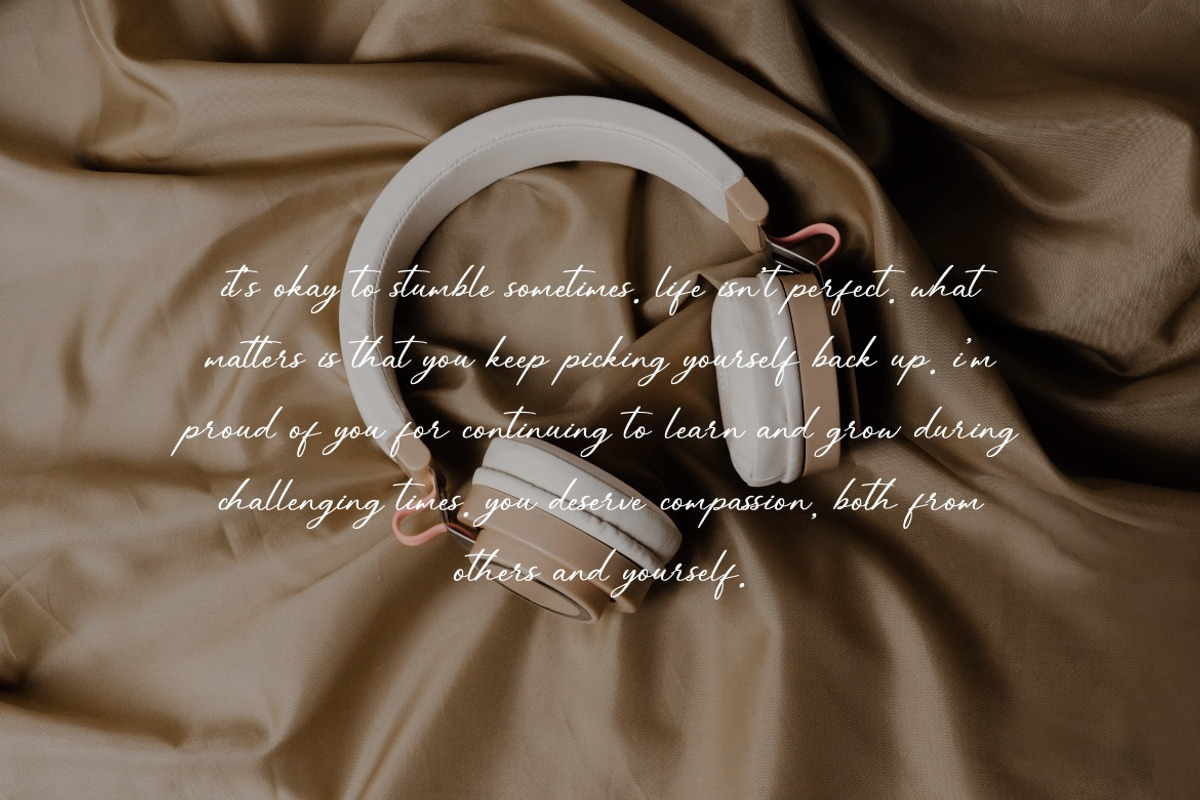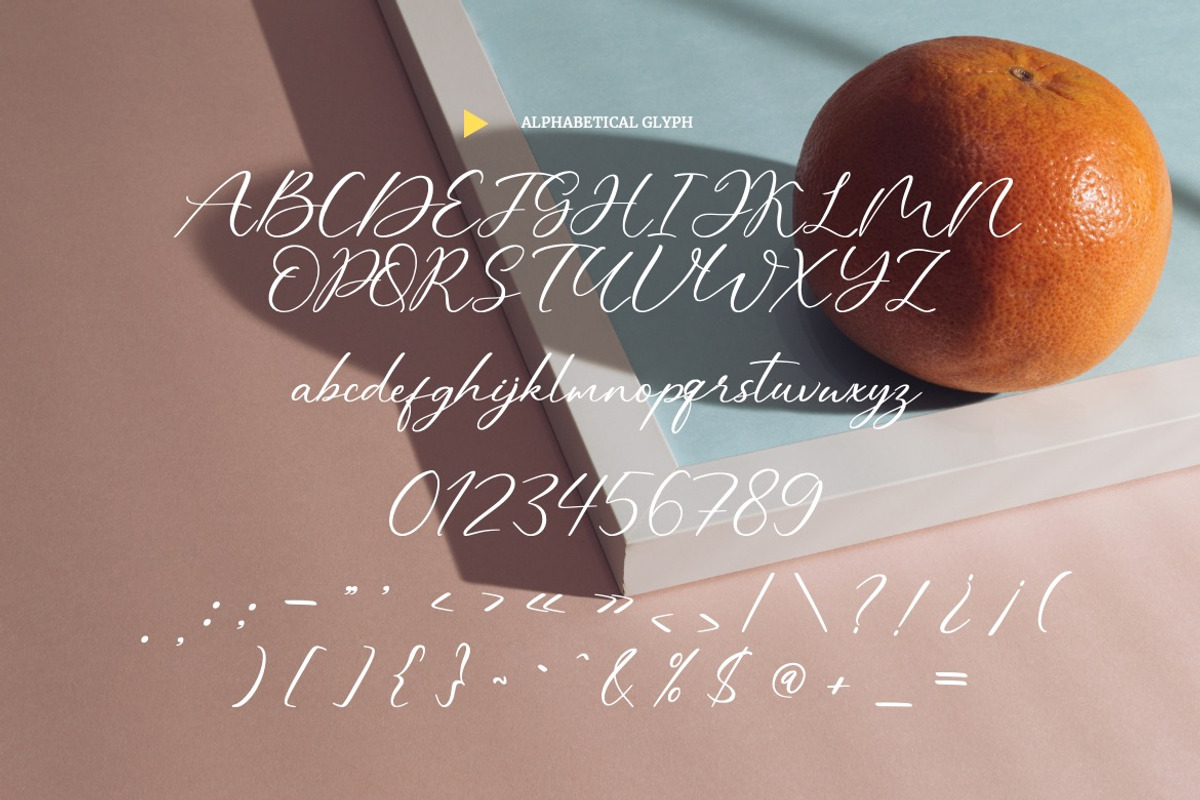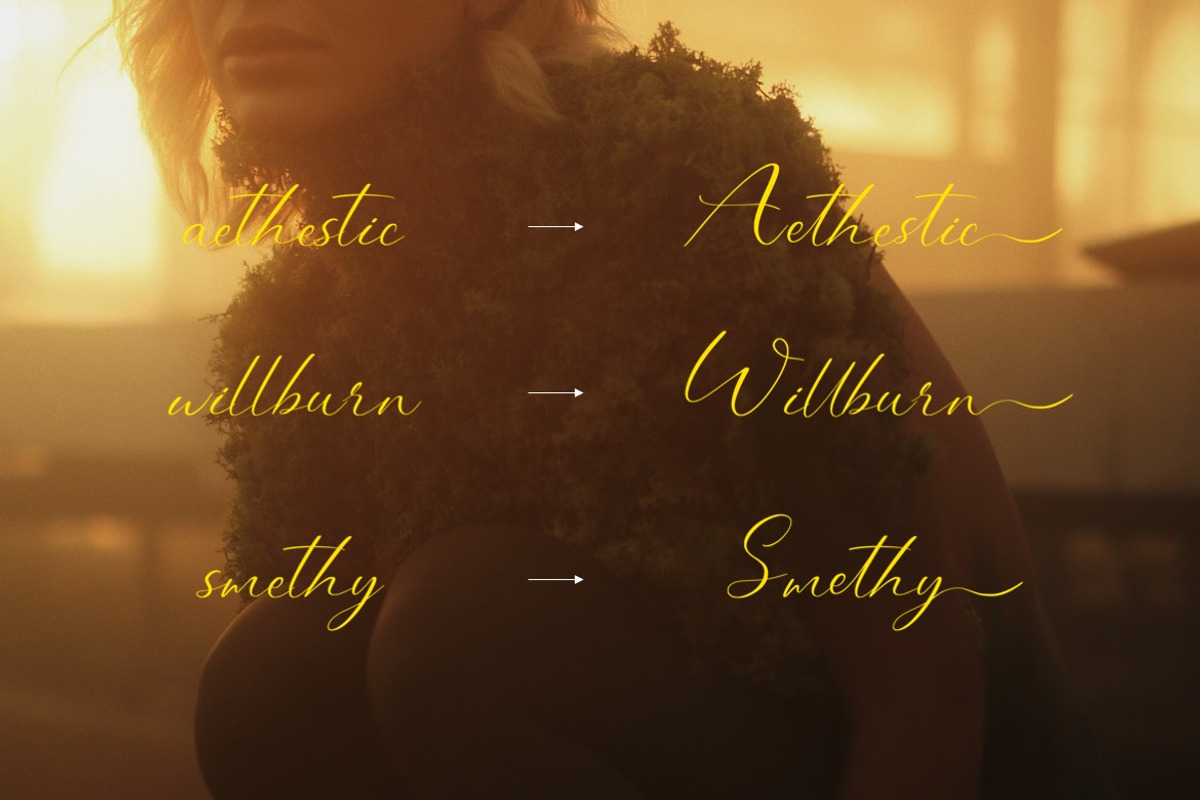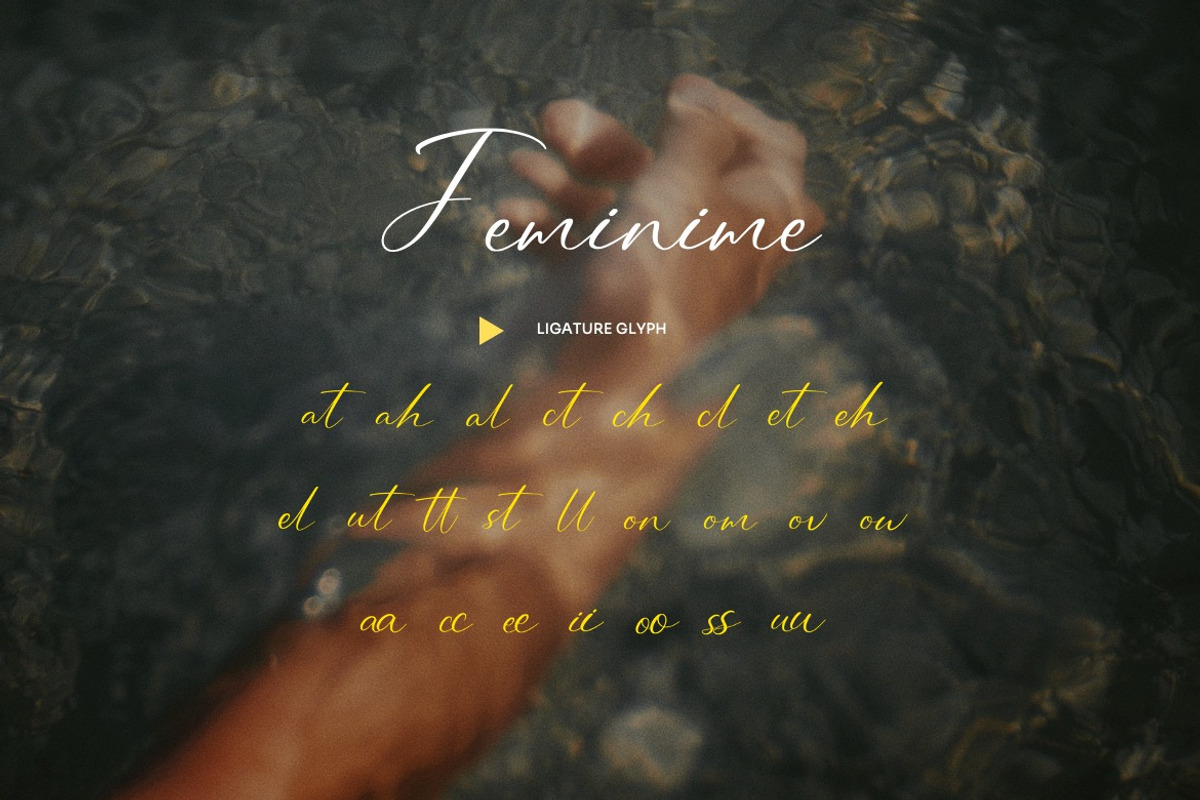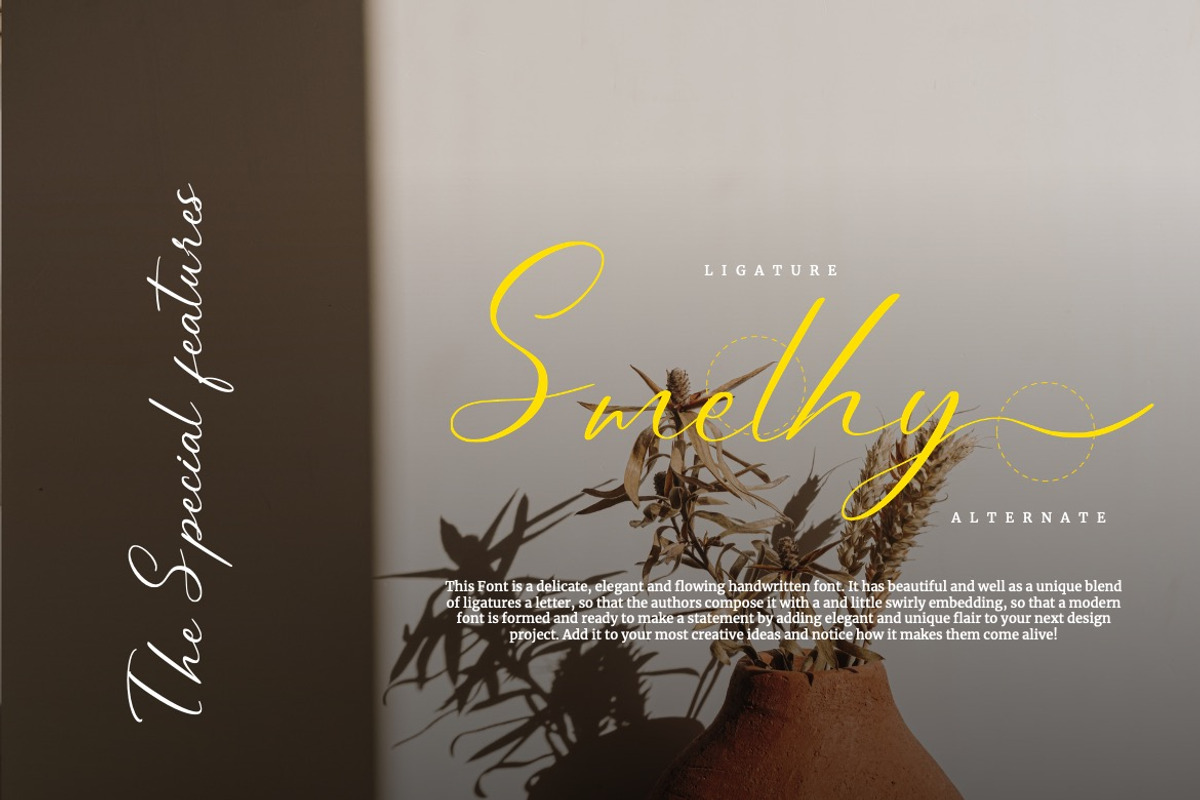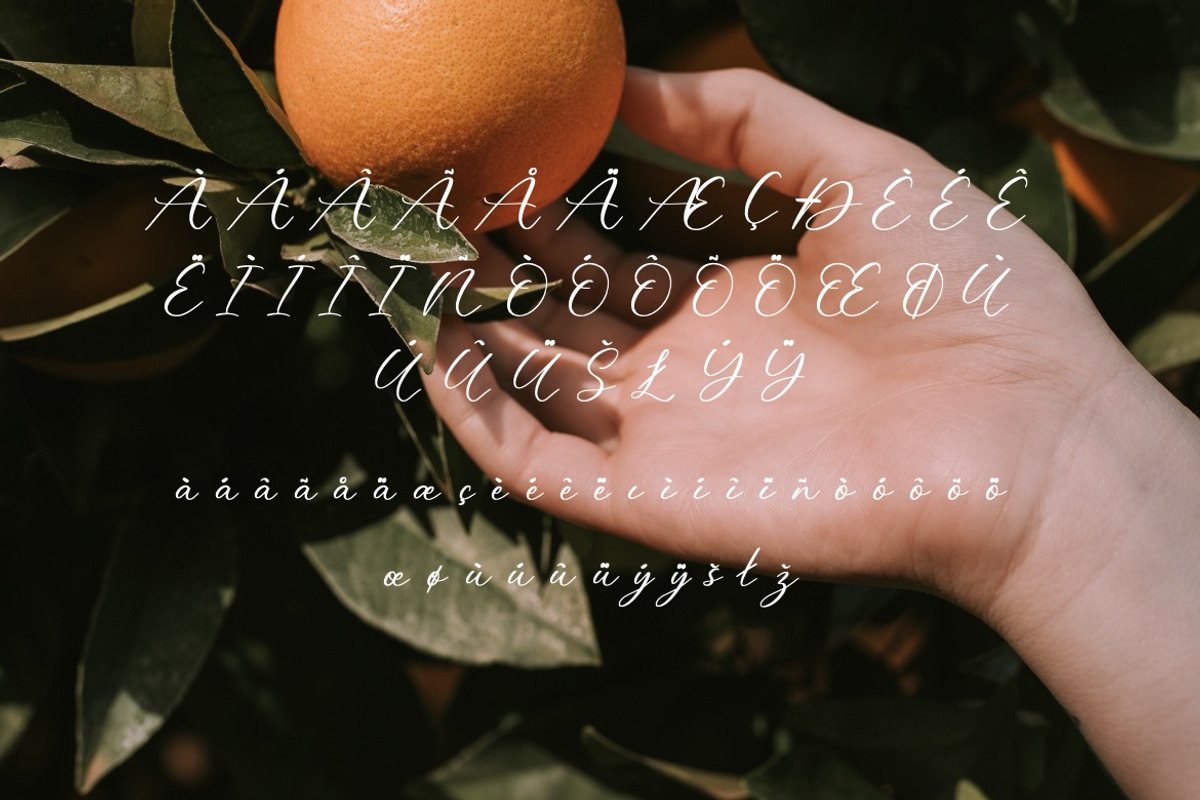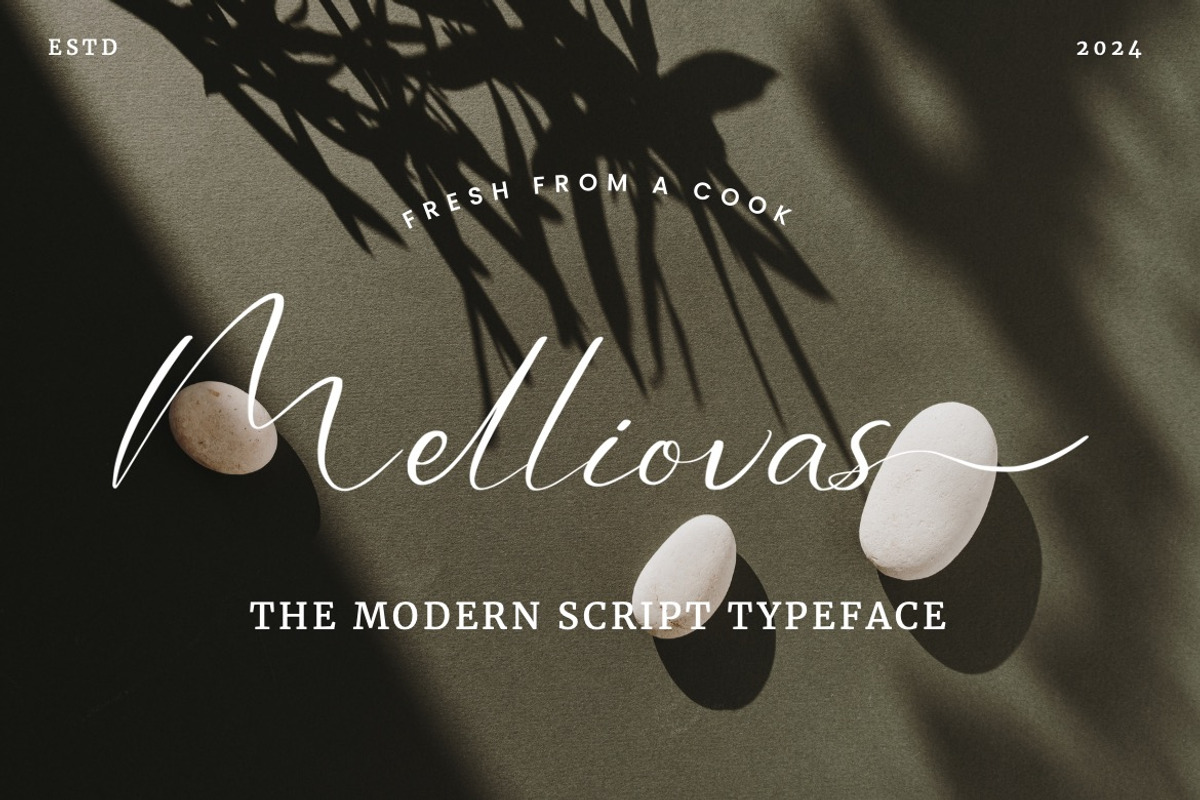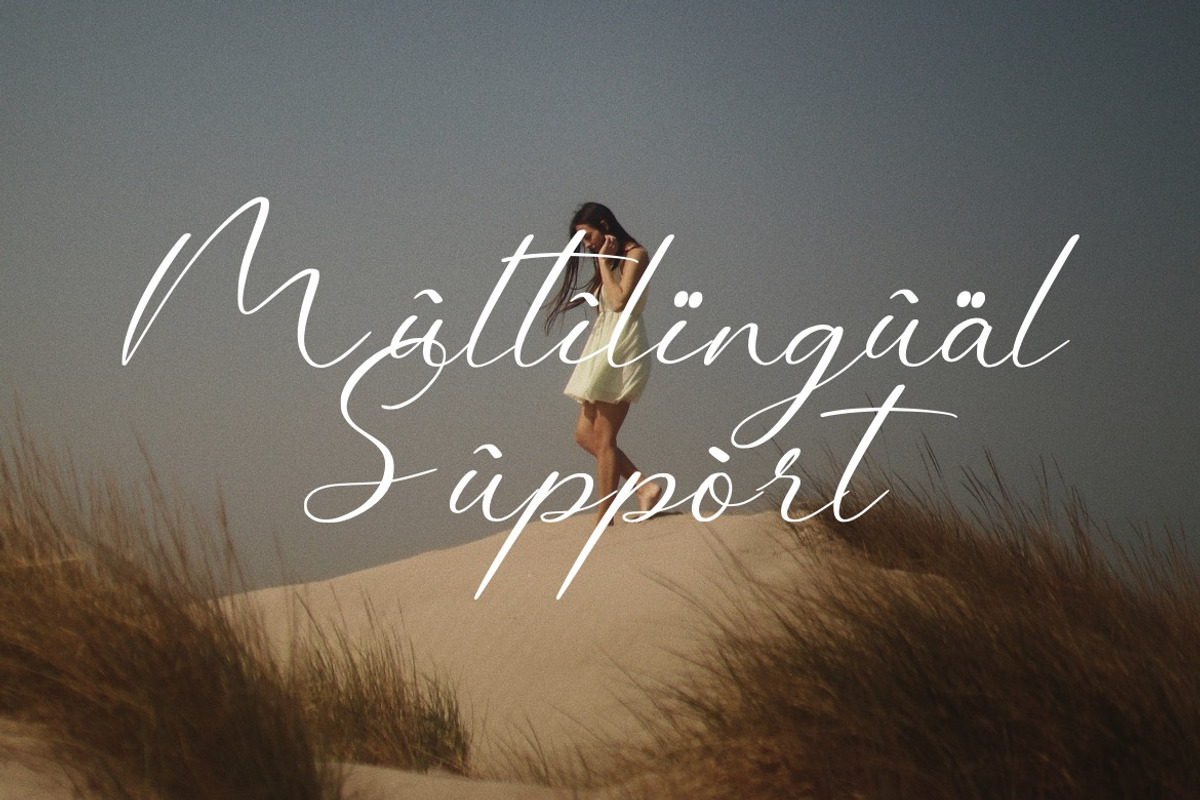
Melliovas - Modern Script Font
Introducing Melliovas - Modern Script Font
This Font is a delicate, elegant and flowing handwritten font. It has beautiful and well as a unique blend of ligatures a letter, so that the authors compose it with a and little swirly embedding, so that a modern font is formed and ready to make a statement by adding elegant and unique flair to your next design project. Add it to your most creative ideas and notice how it makes them come alive!
This Font can be used for various purposes such as Magazine Title, Poster, Logo, T-Shirt, Sub Title, Business cards, Magazines, Book Covers, Wedding Invitations,Templates Instagram Story Post, Greeting Cards, Quotes, etc.
• Uppercase, Lowercase, Numbering & Punctuation
• Alternate & Ligature
• Multilingual Supports
Why Melliovas - Modern Script Font is worth a look
Melliovas - Modern Script Font by Dhabee fits naturally into Branding, posters, packaging, typography.